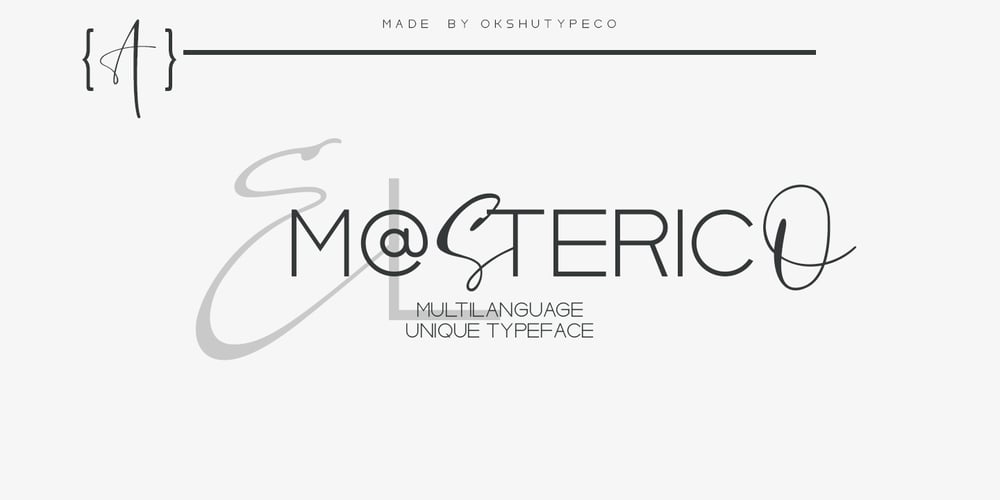
El Masterico
El Masterico font
El Masterico Font Family was designed by Oksana Shudegova and published by OKSHUtypeCO. El Masterico contains 1 styles and family package options. El Maestro – a new fresh unique font.Very suitable for greeting cards, branding materials, business cards, quotes, posters, and more!This font are perfect for wedding postcard. Or you can create perfect and unique design of your logo, blog, stationery, marketing, magazines and more :)Multilingual OK!!!